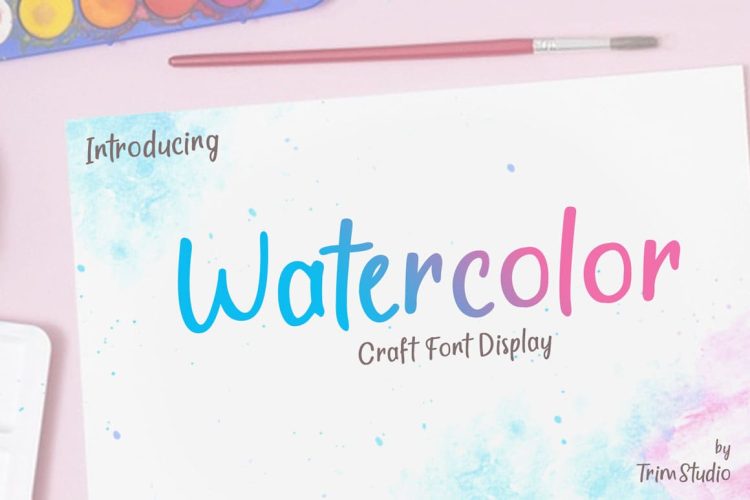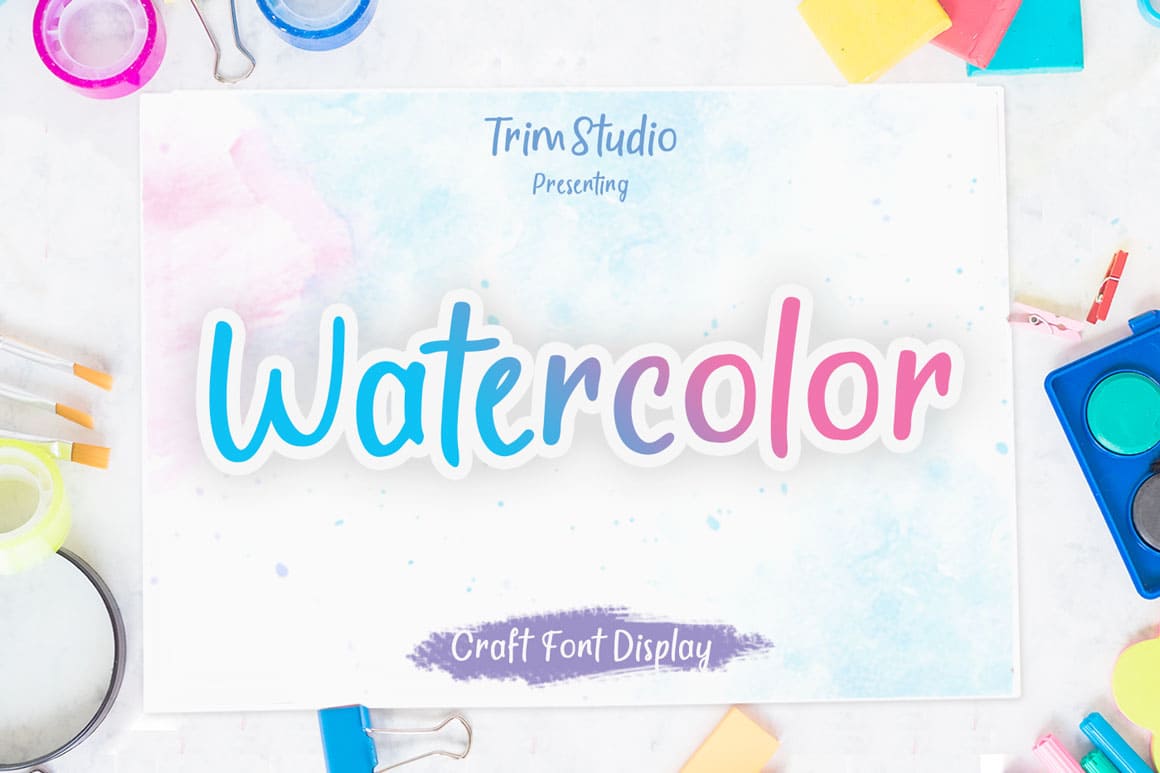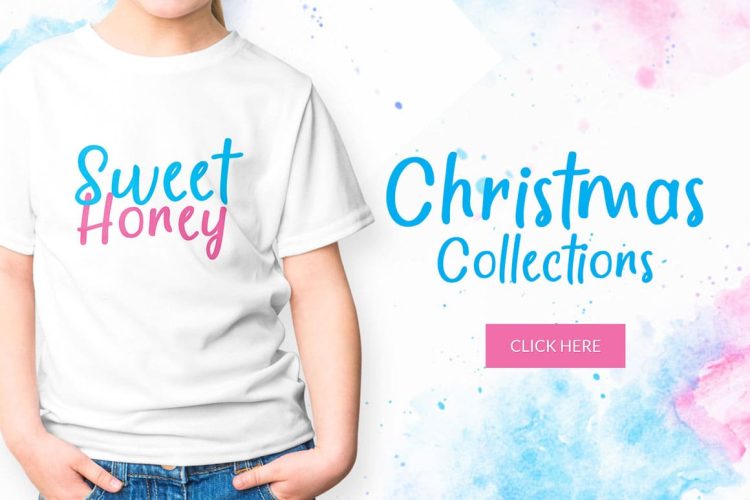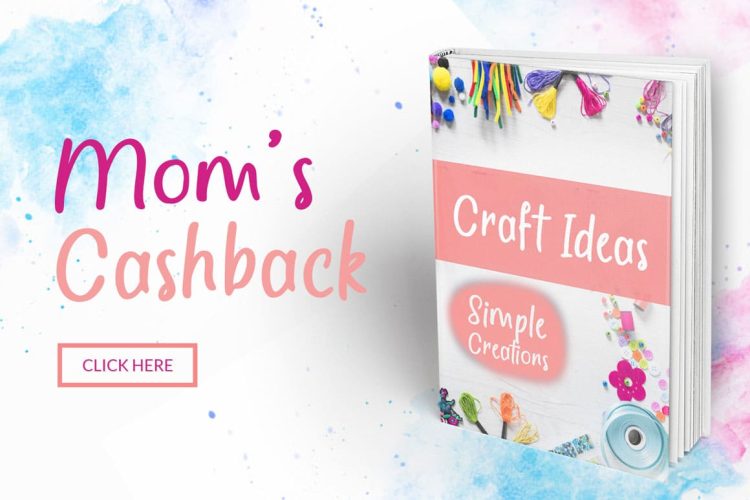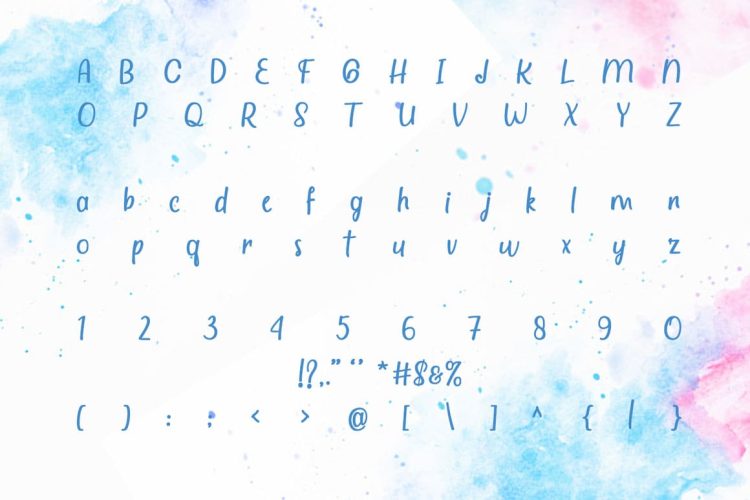
Watercolor is a sweet and playful script with a unique style. Get inspired by its dynamic approach to design!Trimstd is amazing
Watercolor – Craft Font Display